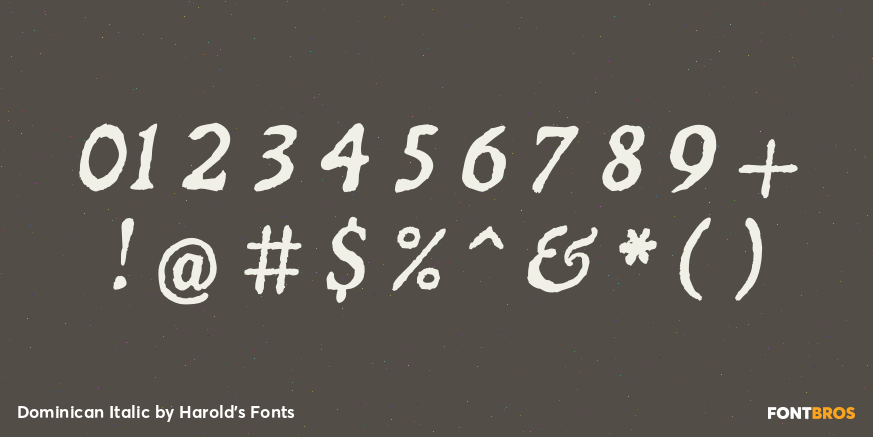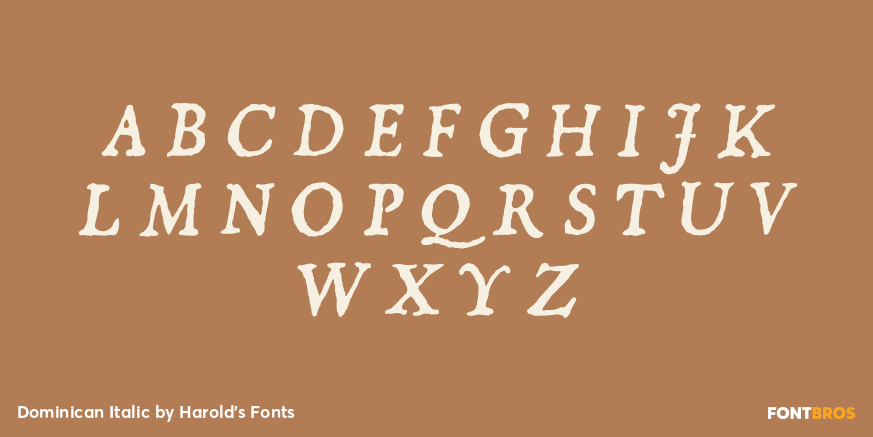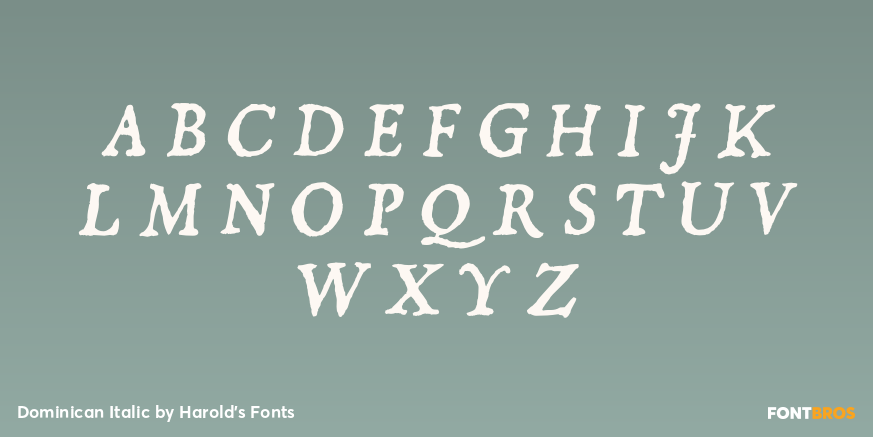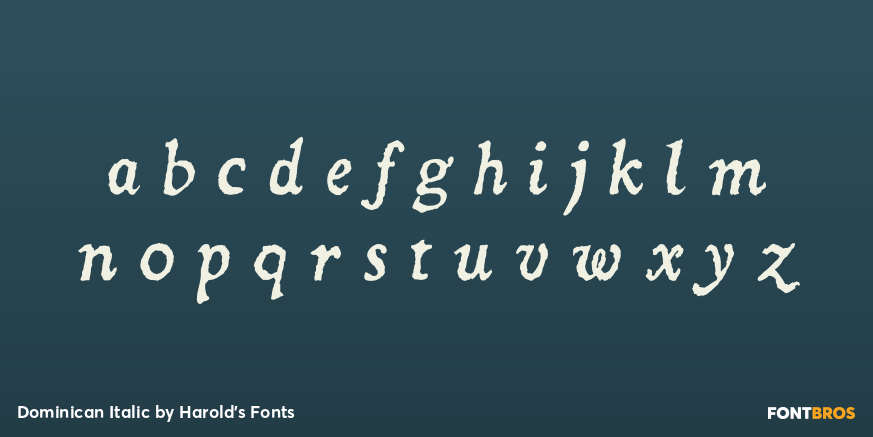
Dominican Italic
The Dominican fonts are designed to look like old letterpress printing. Inspired by an analog font from Dan X. Solo's books, I expanded the series to also include Italic and Small Caps. Version 3.0 now contains lining figures with the old-style figures still available as stylistic alternatives. All 3 fonts have been expanded and refined, making these a fine alternative to the overused Caslon Antique.